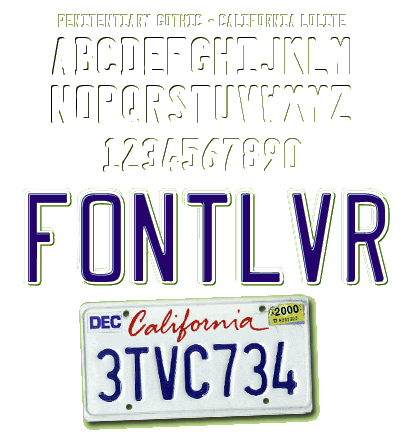
This font is one of four which work together to more accurately replicate the lettering seen on California state license plates. This lolite weight should be used in white, or a very faint tint of the background color.